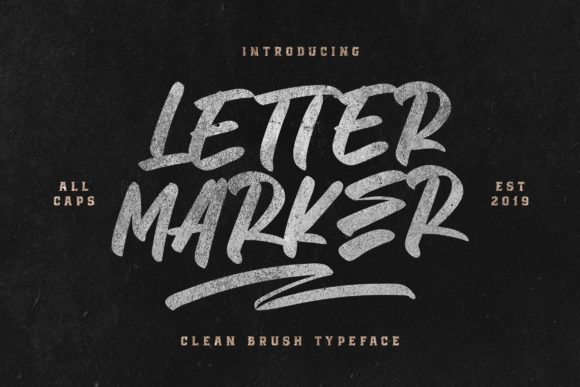
Unleash your creativity with Letter Marker Font, a remarkable script font family that exudes a captivating urban vibe. This font is not just a collection of letters; it's an expression of your individuality, a brushstroke of your imagination. With Letter Marker Font, you hold the power to transform ordinary designs into captivating masterpieces.
Picture this: your website, social media posts, or marketing materials come alive with the energy and personality of Letter Marker Font. Its bold and playful characters dance across the screen, demanding attention and leaving a lasting impression on your audience. This font is perfect for capturing the essence of urban culture, streetwear fashion, and modern design.
Feel the pulse of the city as Letter Marker Font brings your words to life. Its dynamic curves and energetic strokes evoke the rhythm of a bustling metropolis, where creativity thrives and dreams take flight. Each letter is meticulously crafted to embody the spirit of self-expression, encouraging you to push boundaries and redefine the limits of your imagination.
With Letter Marker Font, you'll discover endless possibilities to elevate your designs. Create eye-catching logos that command attention, design posters that ignite emotions, and craft social media graphics that captivate your followers. The font's versatility knows no bounds, making it the perfect choice for a wide range of projects, from personal branding to corporate presentations.
So, embrace the urban spirit and let Letter Marker Font ignite your creativity. Unleash your unique style and leave an indelible mark on the world. Experience the transformative power of a font that speaks your language and resonates with your soul. Download Letter Marker Font today and unlock a world of boundless possibilities.